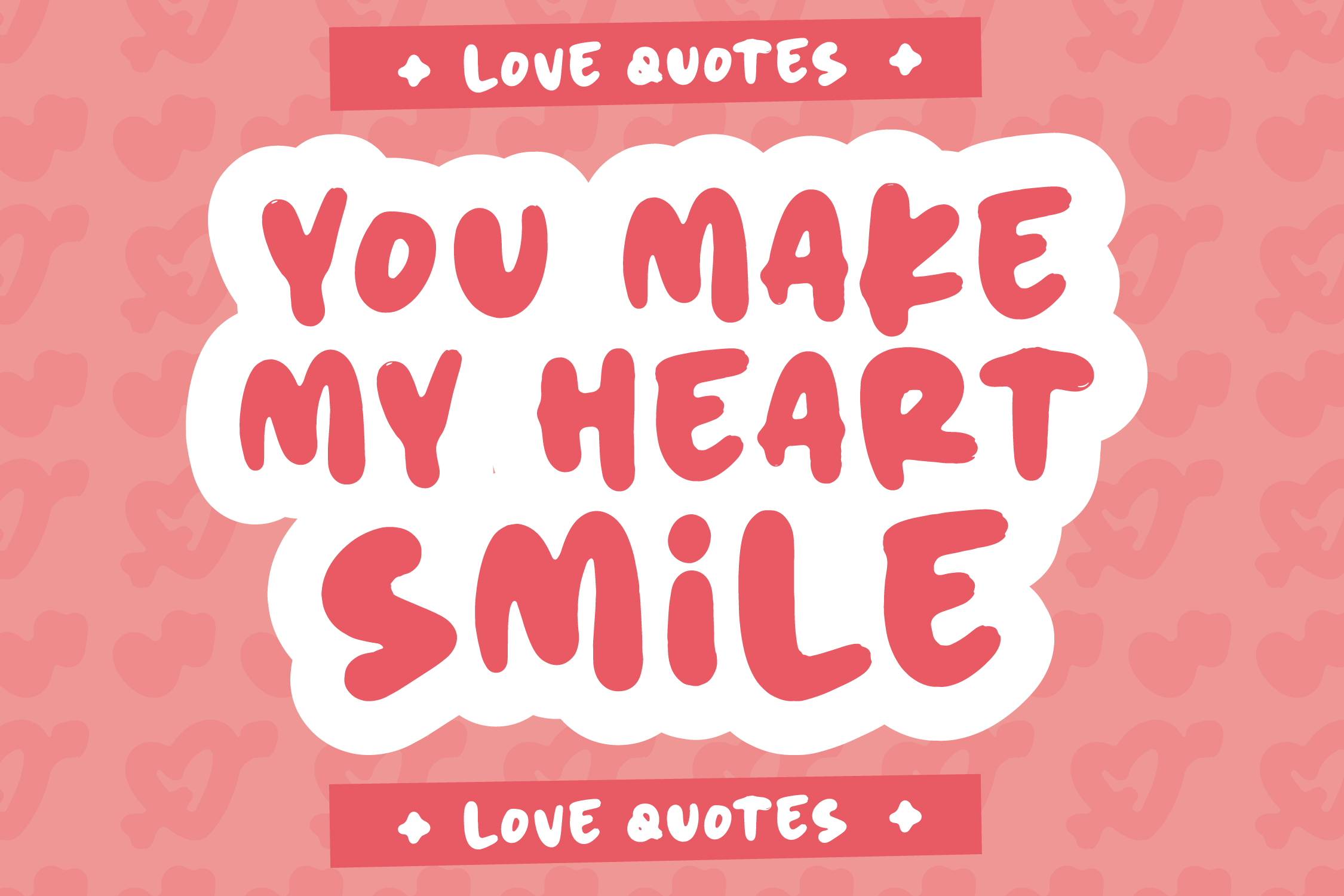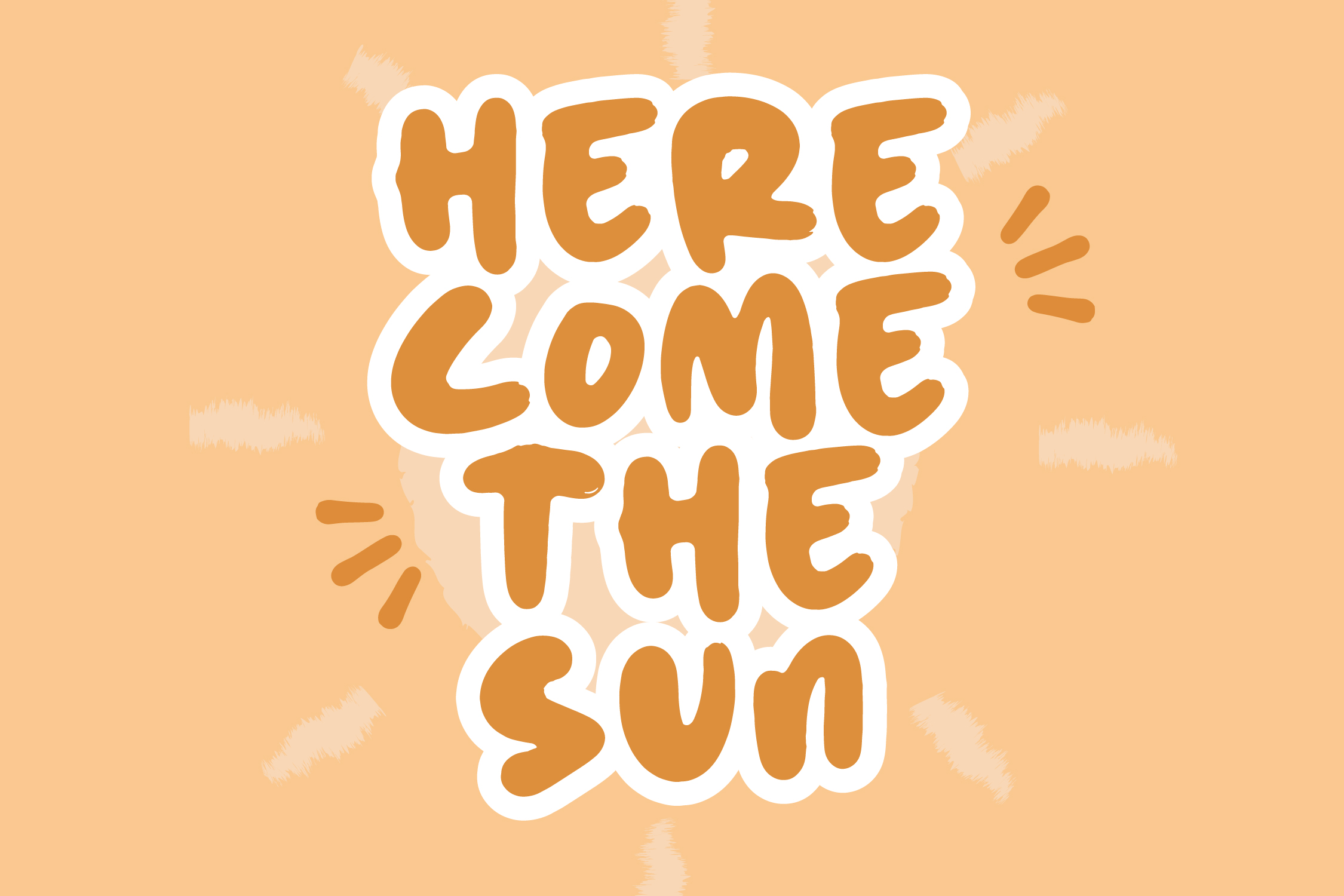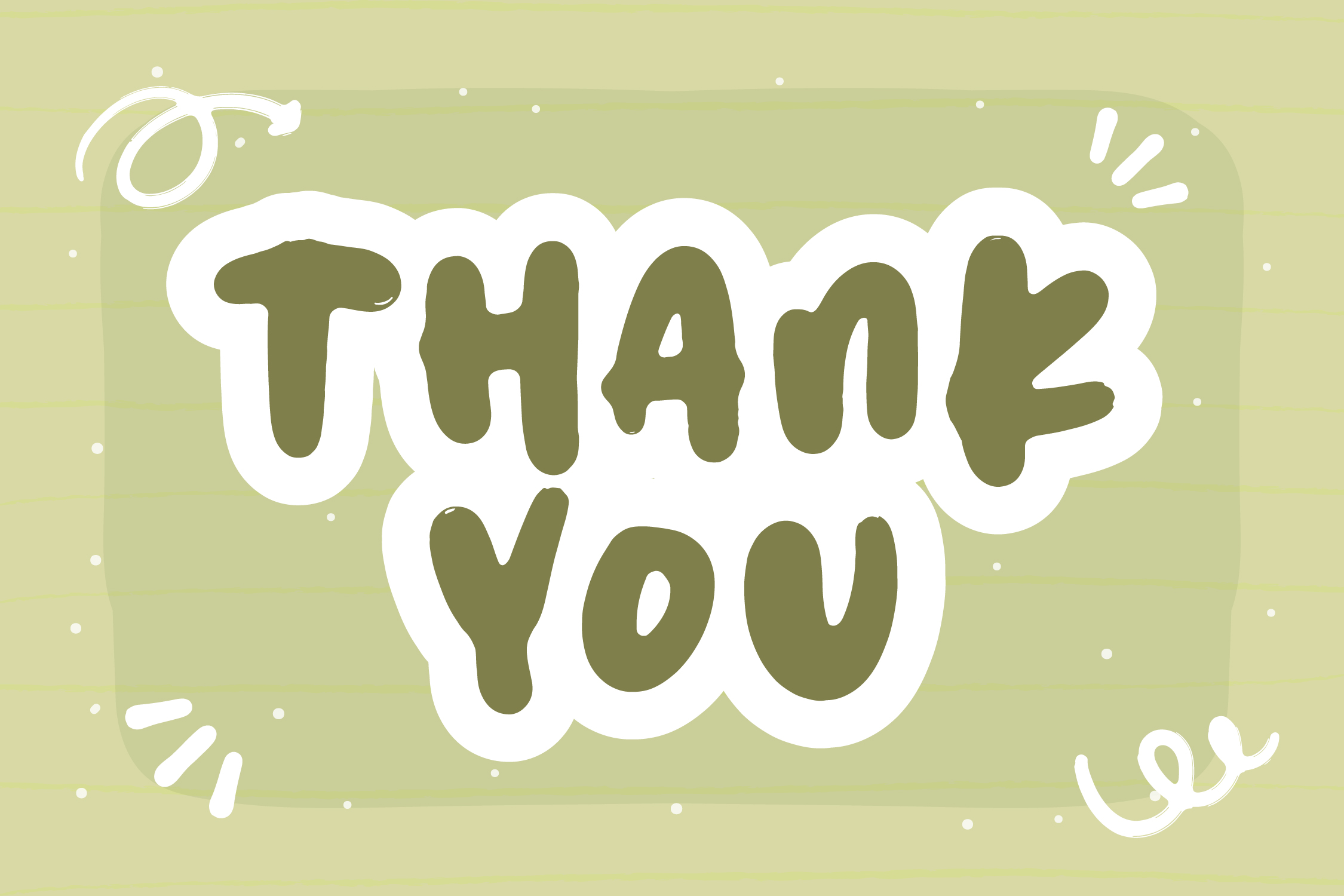
MORN FROGY Font
MORN FROGY Display Font
It’s a bold display Font, suitable for any projects such as: logos, branding projects, homeware designs, product packaging, mugs, quotes, posters, shopping bags, t-shirts, book covers, name card, invitation cards, greeting cards, label, photography, watermark, special events, and all your other lovely projects that need a beautiful script taste.